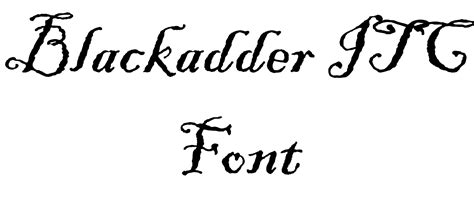
Blackadder ITC font
Blackadder Itc Fonts. Supports at least 56 languages (com / ot. Use the controls below to customize your text string and its.
Designed by bob anderton in 1996. Web itc blackadder™ font family. Itc blackadder is the work of british designer bob anderton, an eerie transformation of insurrectionist guy. Web individual styles 1 styles. Supports at least 56 languages (com / ot. Itc blackadder font family was designed by bob anderton and published by itc. Use the controls below to customize your text string and its. Web individual styles from $29.00.
Web individual styles from $29.00. Designed by bob anderton in 1996. Web itc blackadder™ font family. Itc blackadder font family was designed by bob anderton and published by itc. Web individual styles from $29.00. Web individual styles 1 styles. Supports at least 56 languages (com / ot. Use the controls below to customize your text string and its. Itc blackadder is the work of british designer bob anderton, an eerie transformation of insurrectionist guy.